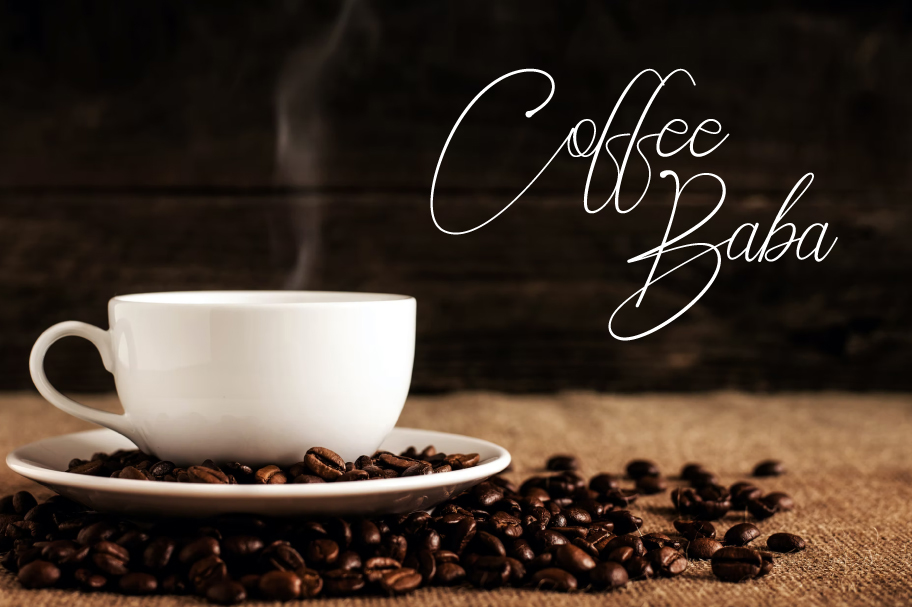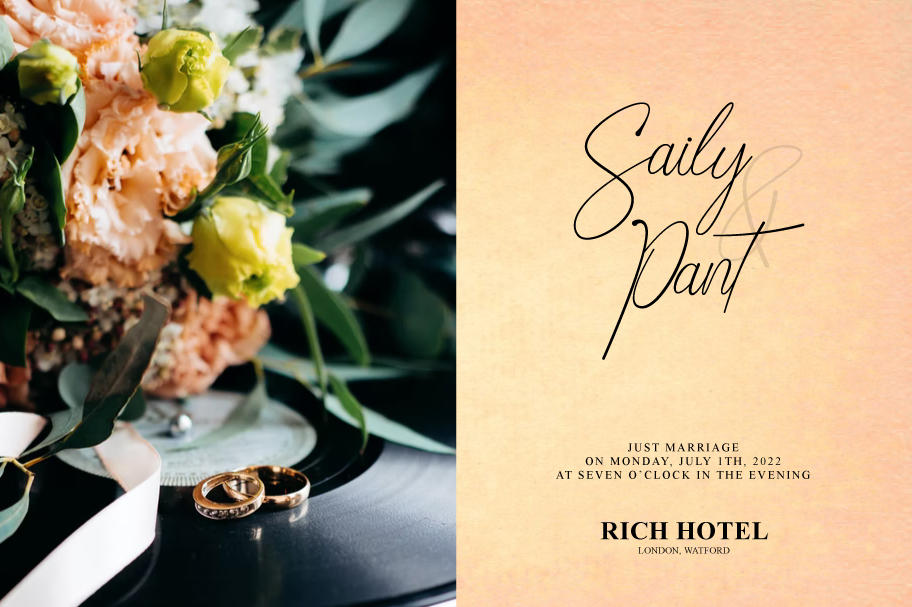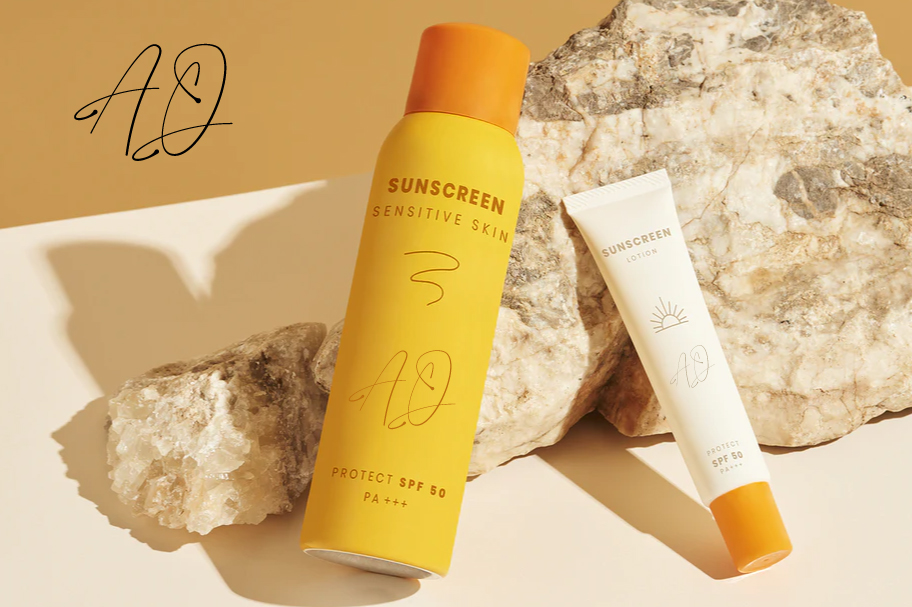
Kamkil Font
Kamkil Script Font
This font is perfect for branding projects, logos, wedding designs, social media posts, advertisements, product packaging, product designs, label, photography, watermark, invitation, stationery, and other projects that need handwriting taste.